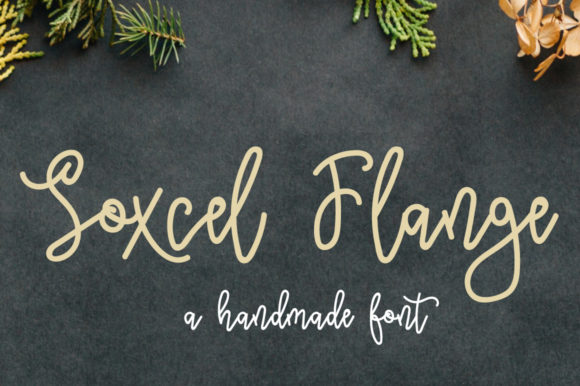
Soxcel Flange Font
Soxcel Flange is a beautiful and fun handwritten font with a unique feel. It will put an authentic and lovely twist on any design project!